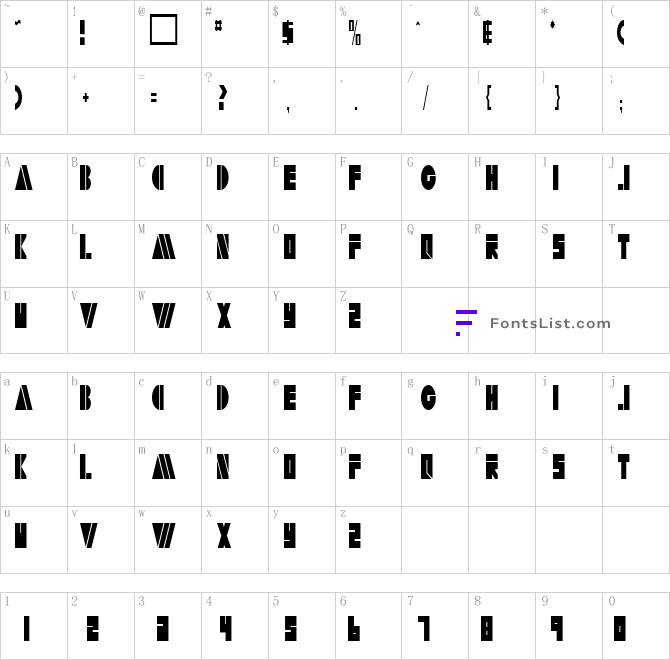
- Font Name:Arty
Arty-Regular.ttf is a very beautiful artistic font, Arty-Regular.ttf is widely used in the design and printing of various books and pictures,Arty-Regular.ttf has a strong visual impact,Arty-Regular.ttf is a commonly used font in newspapers, magazines and books, and is used in posters, e-commerce Poster design, store design, logo design, font design and other fields.Arty-Regular.